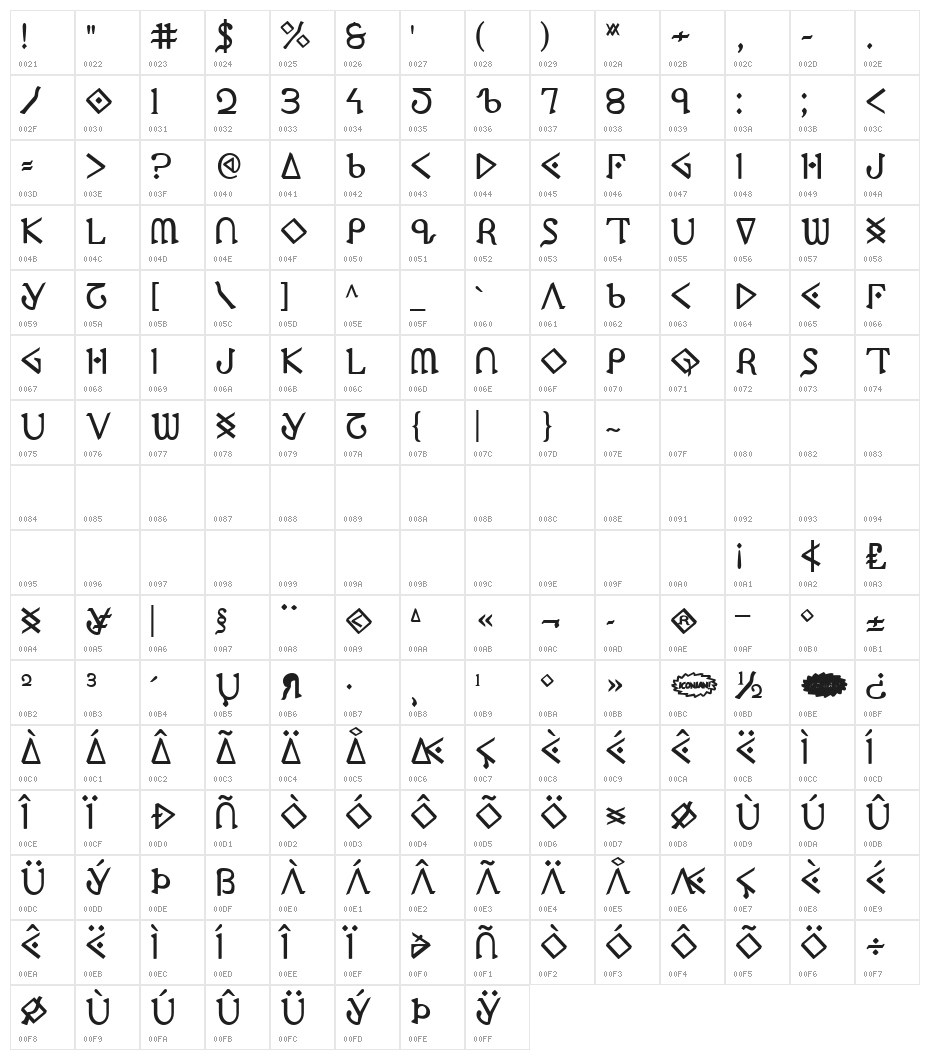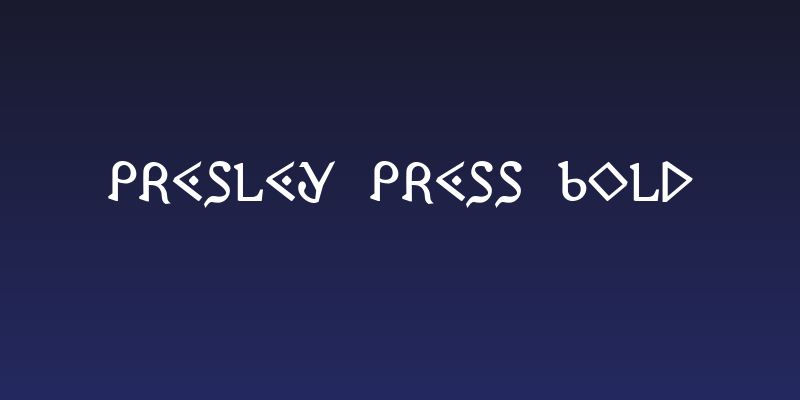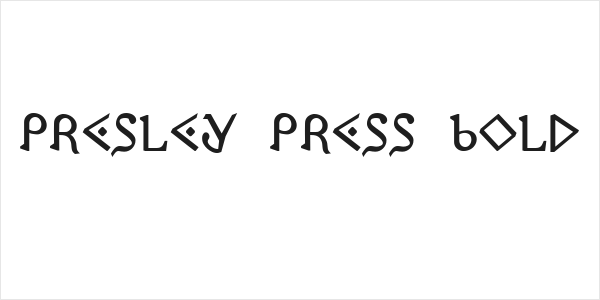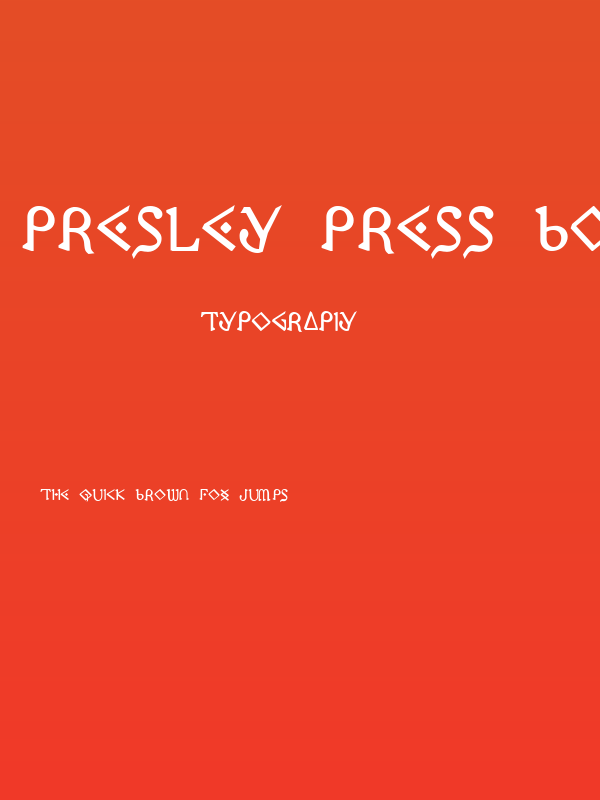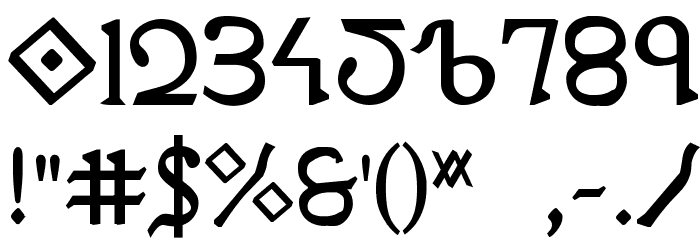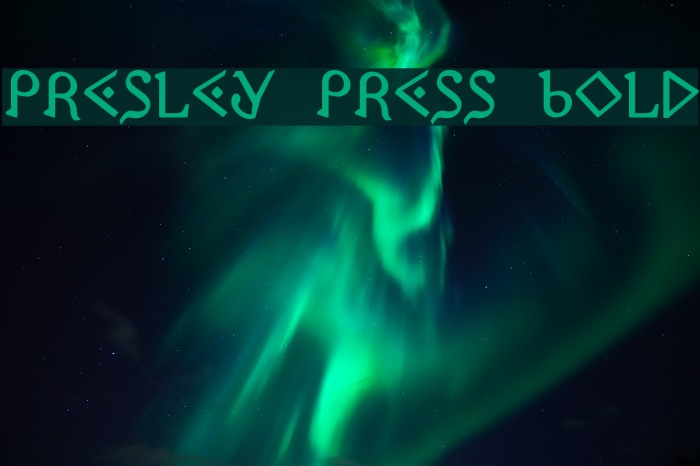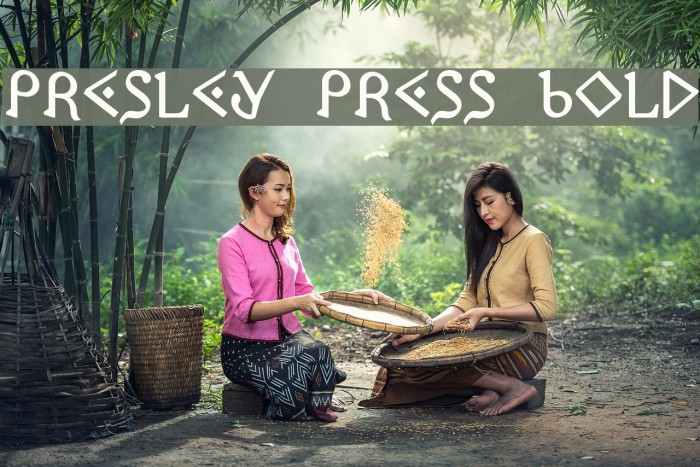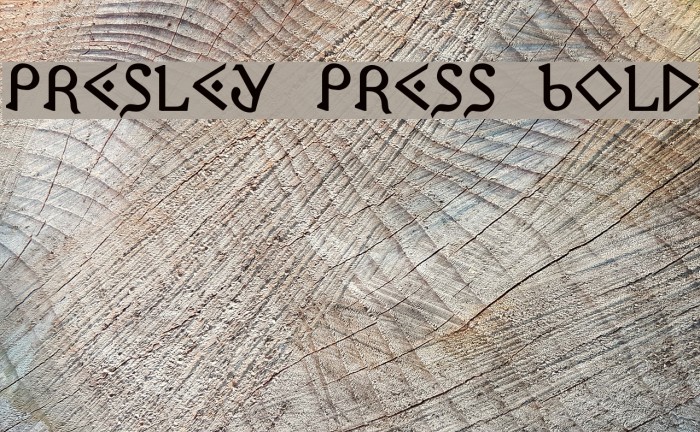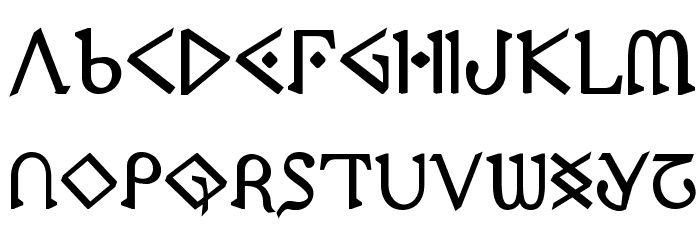
Presley Press Bold Font
Presley Press Bold Description
This font features a bold and decorative style with a unique geometric flair. The characters are crafted with sharp angles and distinct curves, giving it an almost futuristic or tribal appearance. The uppercase letters are particularly striking, with some characters incorporating triangular and diamond-like shapes. The lowercase letters maintain a similar style, ensuring consistency throughout the typeface. Numbers and special characters follow the same design principles, making the font versatile for various uses. The overall look is bold and eye-catching, perfect for making a statement.
| Proposed Projects | Ideal for branding, posters, album covers, and any project needing a bold, distinctive look. |